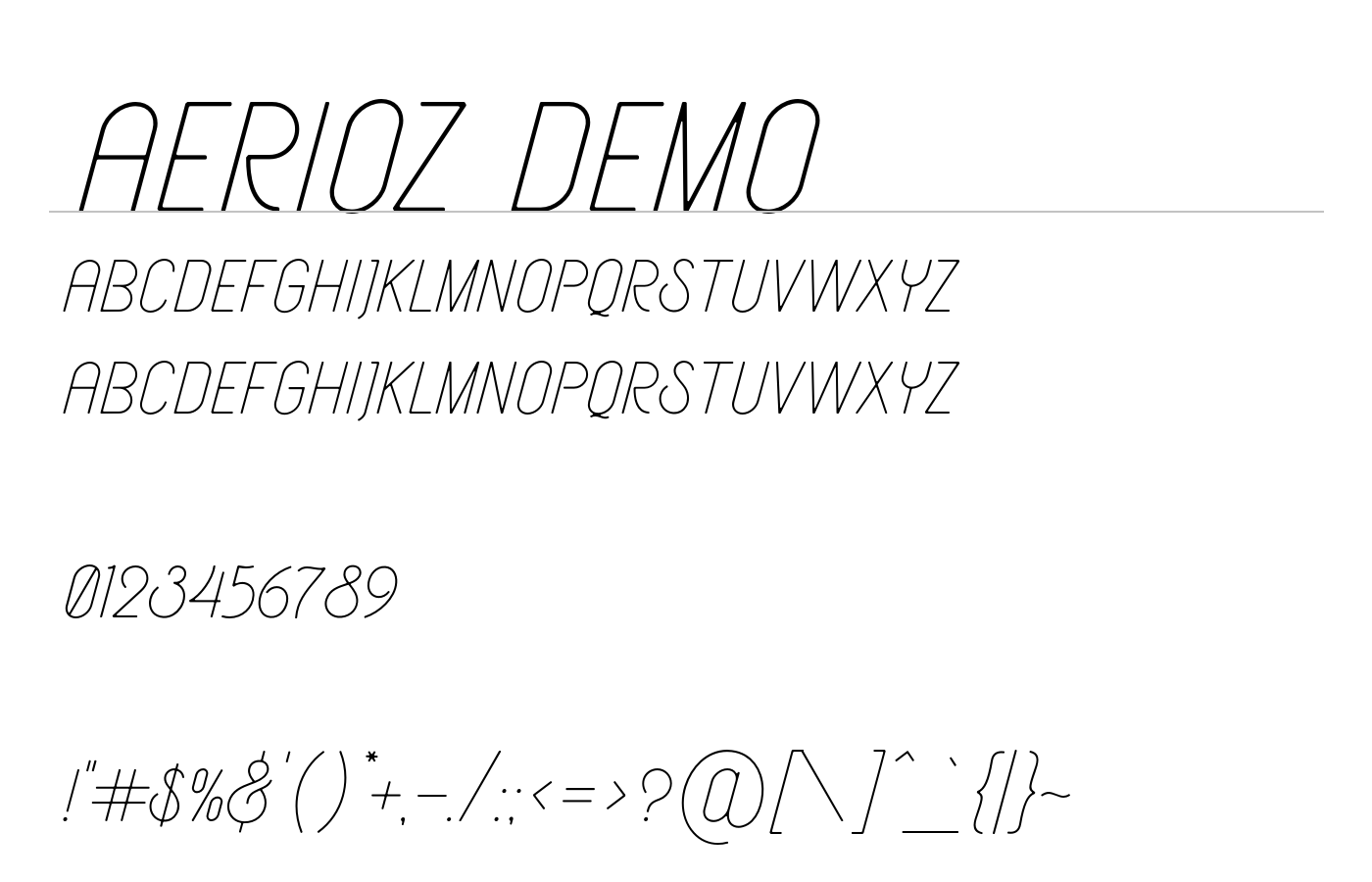
Aerioz Demo is a sleek, ultra-lightweight sans serif font with a distinctively narrow and tall structure, featuring smooth, clean lines and a subtle italic slant that gives it a modern, dynamic feel. Its minimalist design makes it well-suited for contemporary branding, fashion, and tech-focused projects where a sophisticated yet understated look is desired. This font works best in headlines and logos, offering a stylish, elegant touch without overwhelming the design.
Aerioz Demo Font
About Aerioz Demo Font